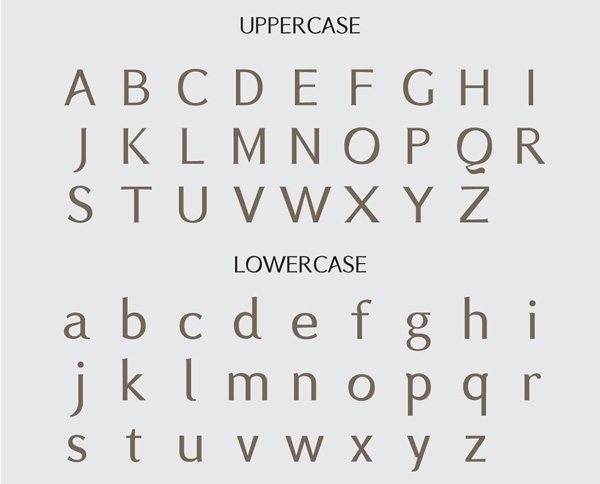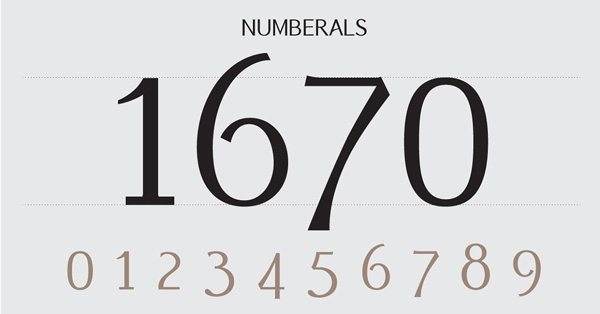
BSRU Bansomdej Font [V.2.0] is a display typeface inspired by contemporary classic Thai style. This typeface have many alternative weights [4 Weighrs & 6 Styles], perfect for usage in posters headlines and/or body text (especially the latin type). Designed by WISIT PO.